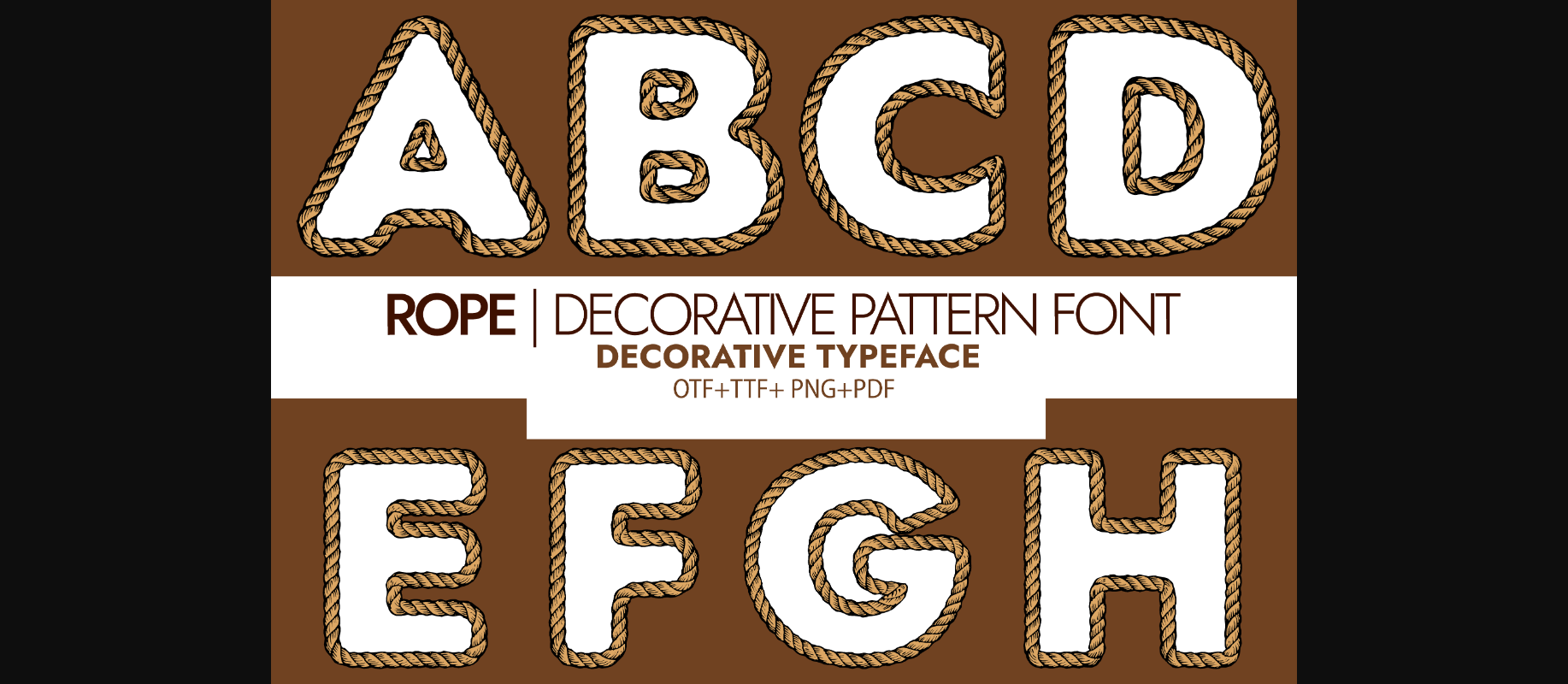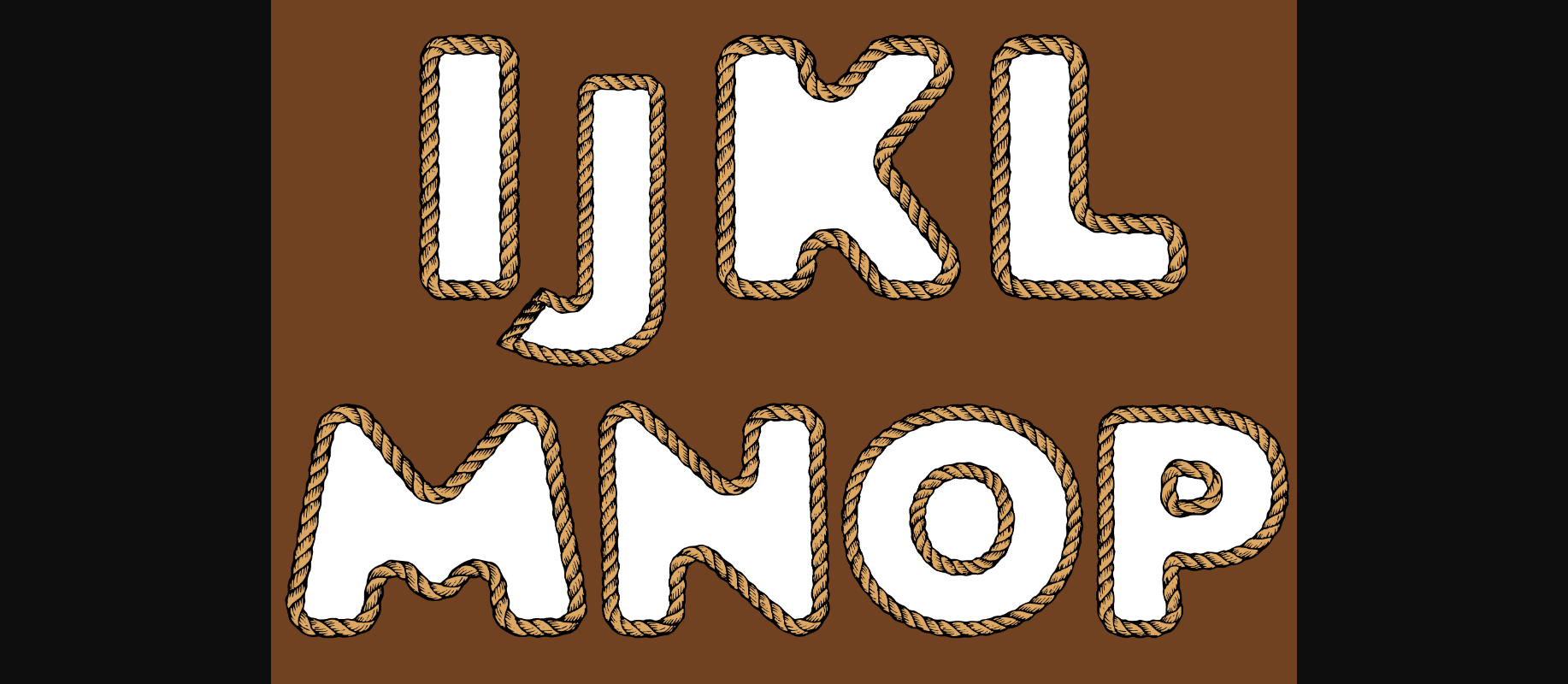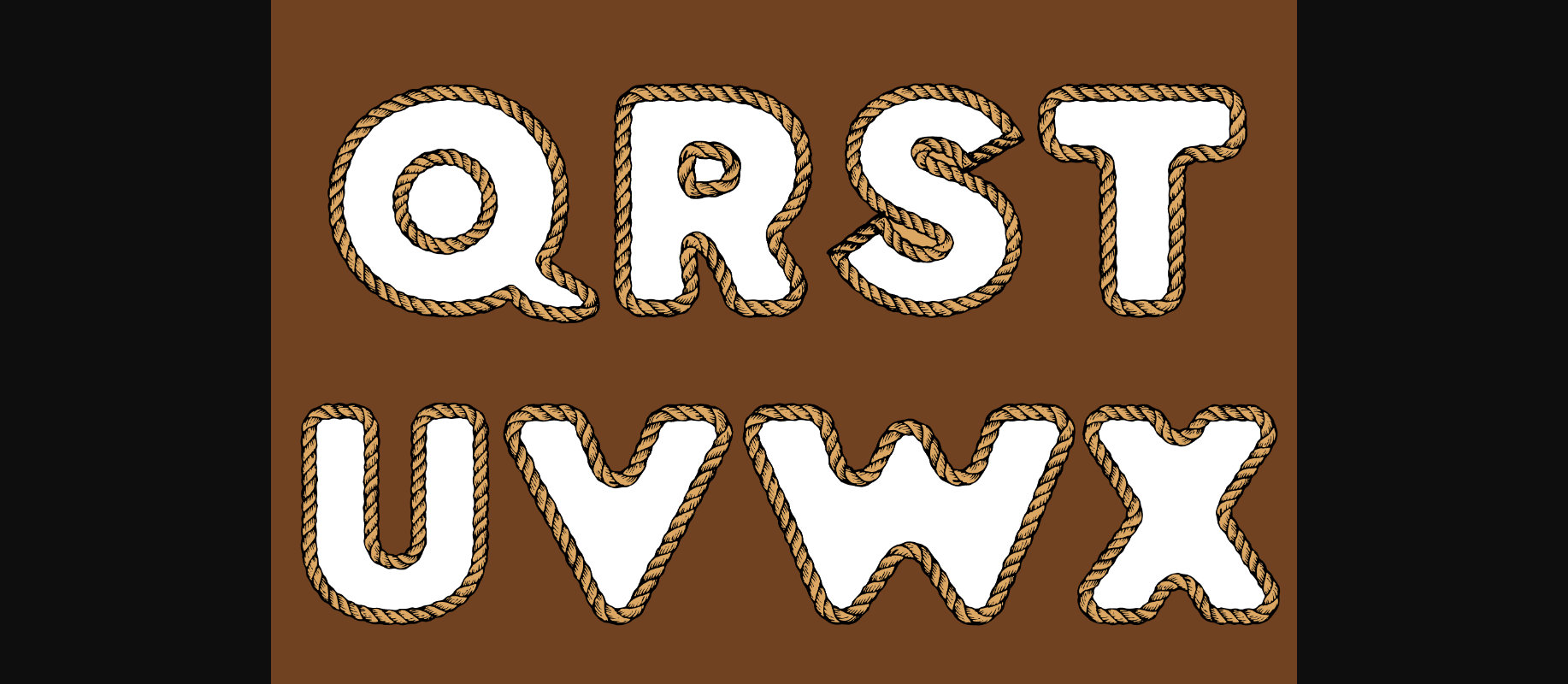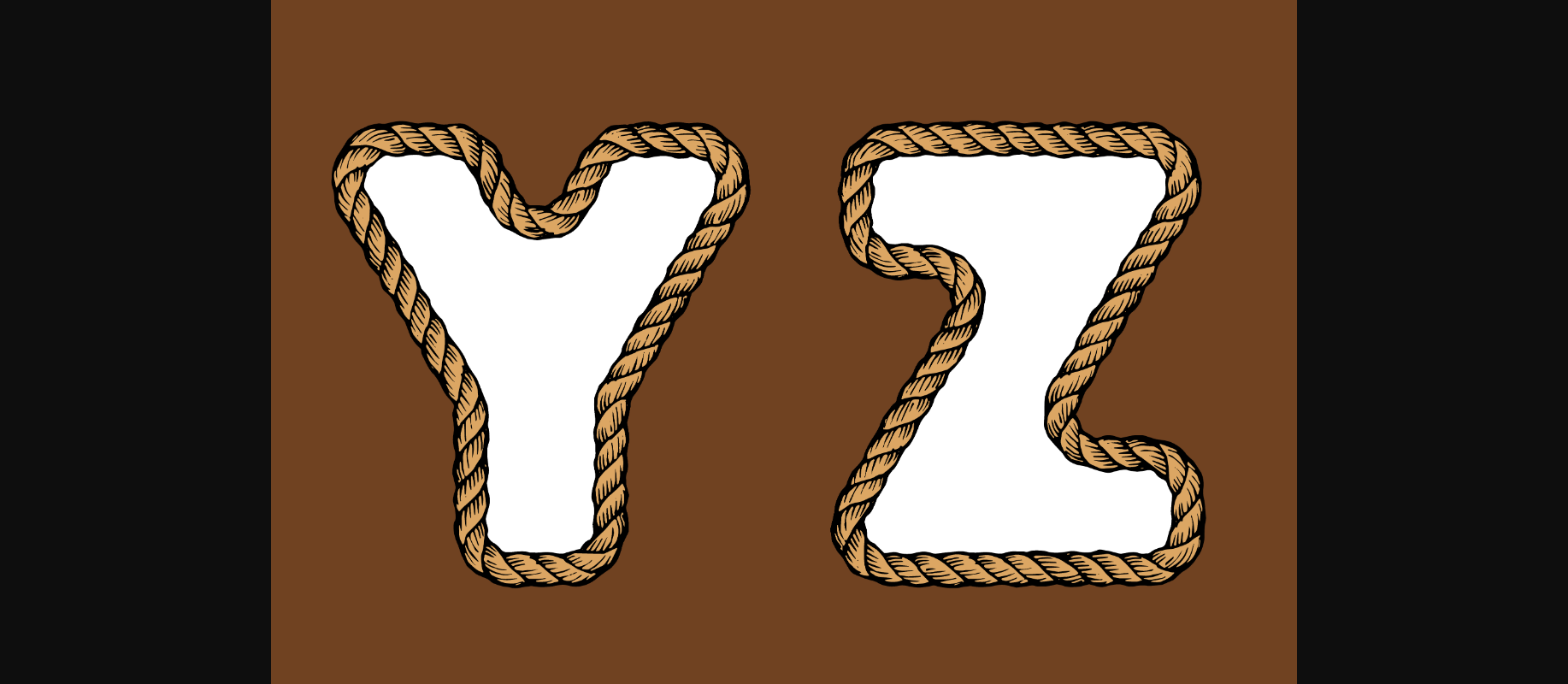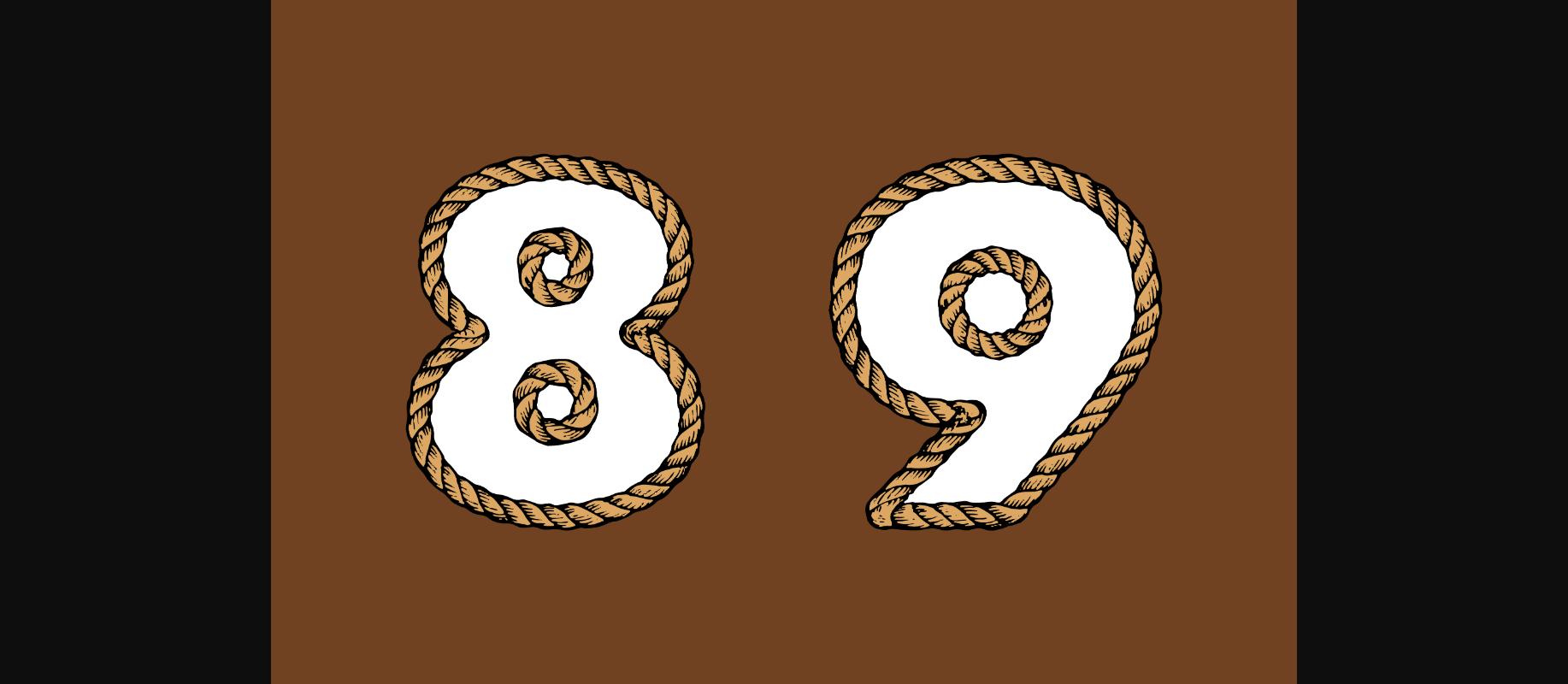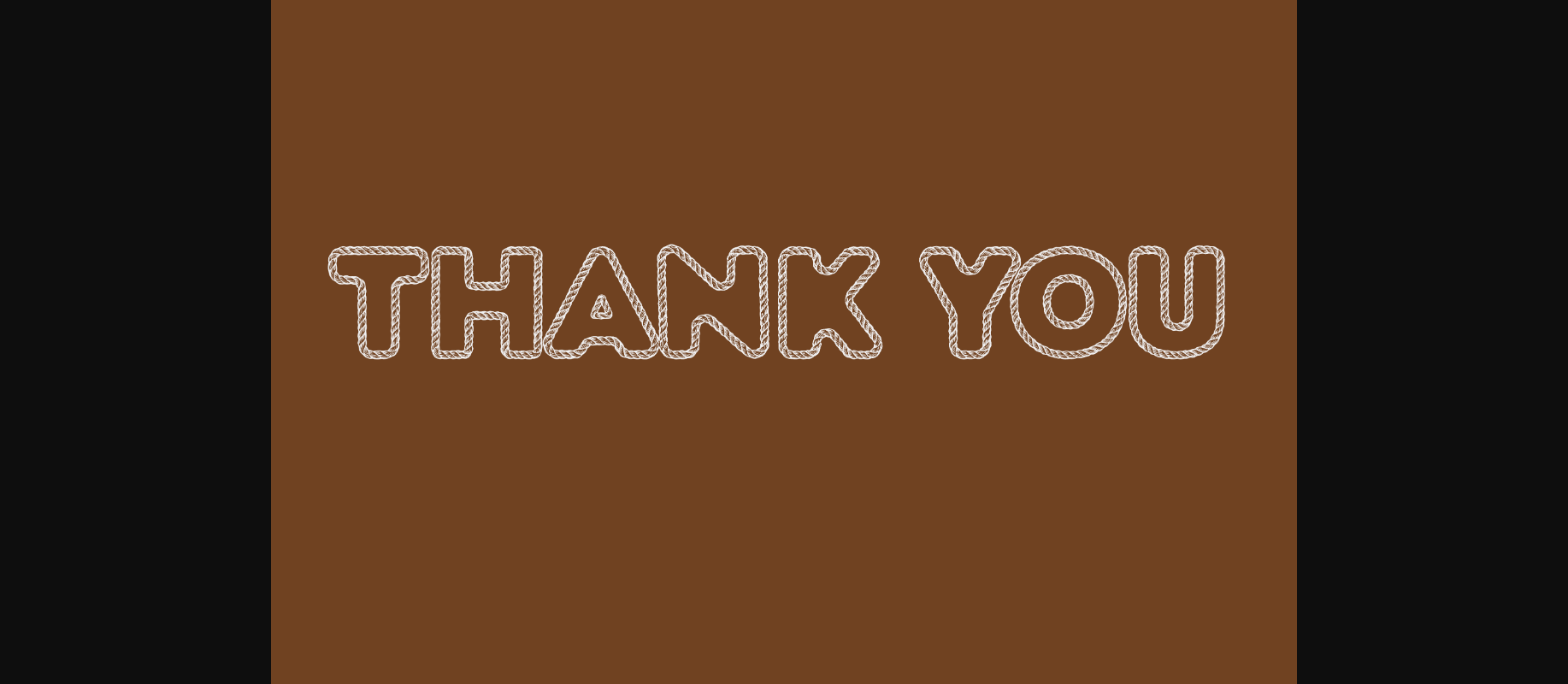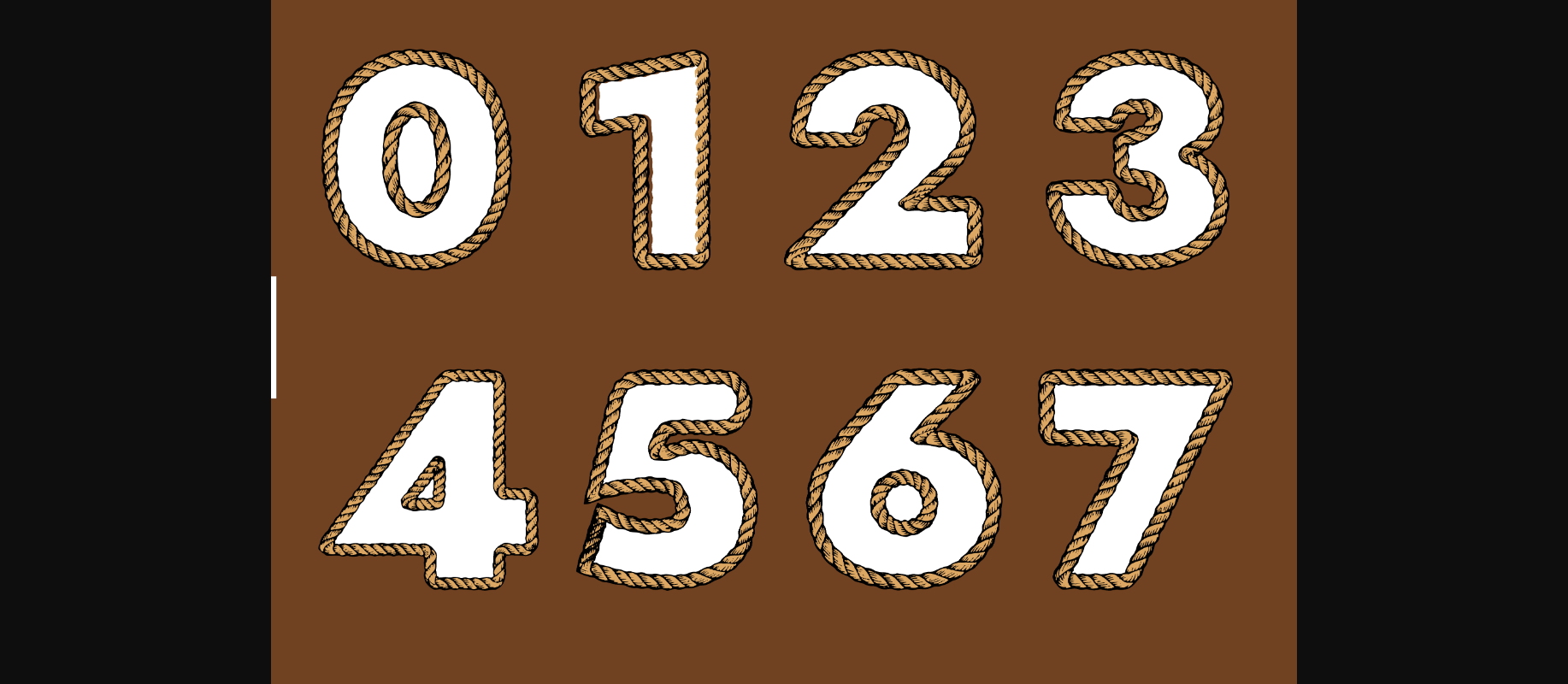
HomeDecorative FontsRope Font Decorative Fonts Rope Font FacebookXPinterestWhatsApp 1 of 9 ... Rope Font Poster 2... Rope Font Poster 3... Rope Font Poster 4... Rope Font Poster 5... Rope Font Poster 6... Rope Font Poster 7... Rope Font Poster 8... Rope Font Poster 9... About Rope Font Rope is a fun and unique decorative font designed to help you generate rope-decorated capital letters and numbers. It is a wonderful choice for many creative ideas and crafts! DOWNLOAD NOW People also explored Philadelphia Font Meytica Font Homebrewer Sans Font Desango Font Ravenholm Family Font Love Squall Font Potassium Font View of Santorini Font Dinasty Rubby Font 266 0 TagsRopeRope Font Previous articleAmaryllis FontNext articleKathrine Monogram Font LEAVE A REPLY Cancel reply Comment: Please enter your comment! Name:* Please enter your name here Email:* You have entered an incorrect email address! Please enter your email address here Website: Save my name, email, and website in this browser for the next time I comment. Personal Use Free Triangular Curves Personal Use Free Read more about this font Simple Personal Use Free Read more about this font Strings Personal Use Free Read more about this font Summer Pisces Personal Use Free Read more about this font BLOG Free vs Paid Fonts: Why Investing in Premium Fonts Is Worth It Free vs Paid Fonts: Why Premium Fonts Are Worth It in 2025 The debate of free vs paid fonts continues in the design world. While... Modern Sans-Serif Fonts That Brands Love in 2025 Top 10 Handwritten Fonts That Elevate Your Designs Free Fonts Risk: Why Free Fonts Can Be Dangerous for Designers